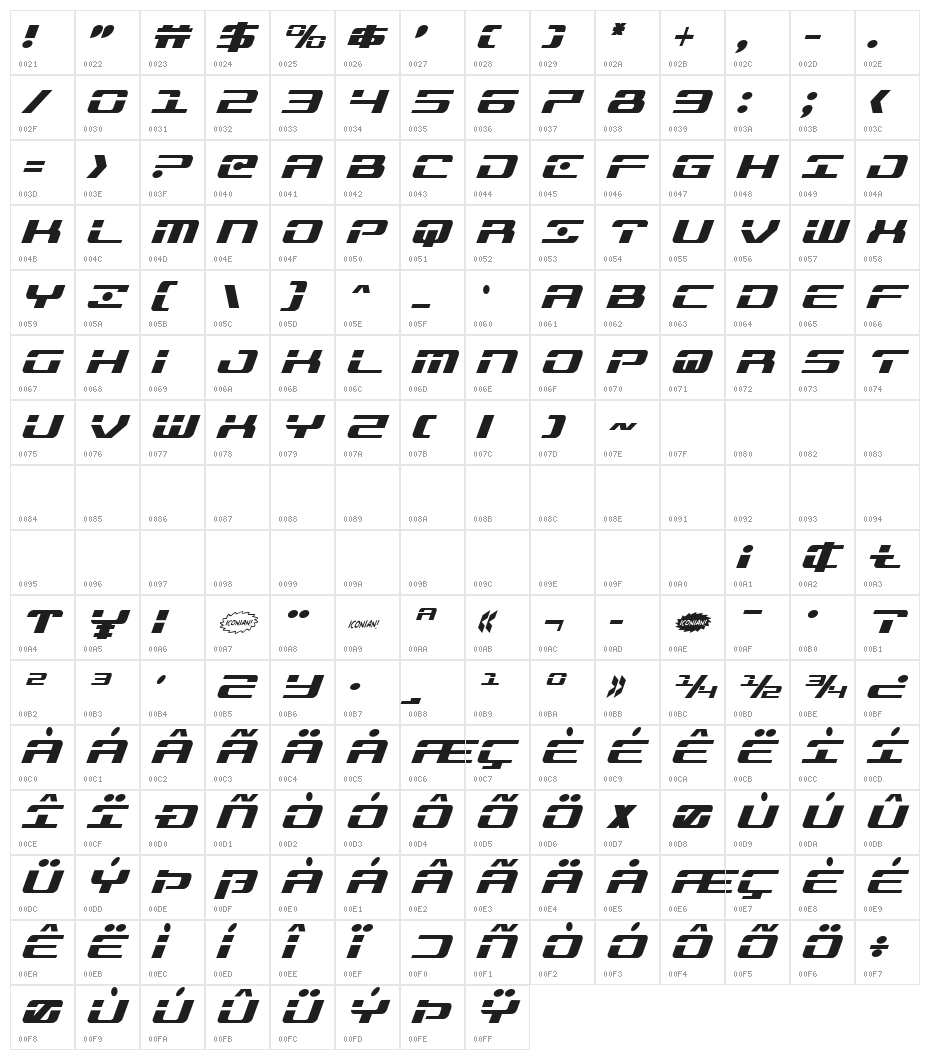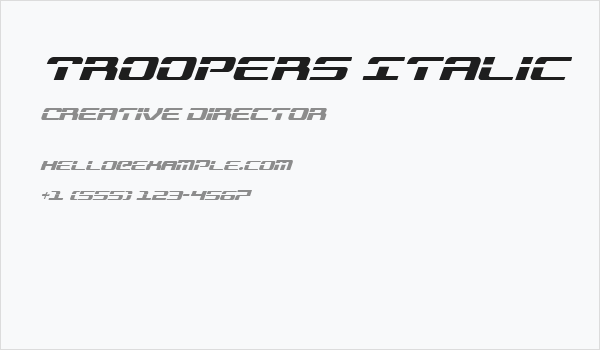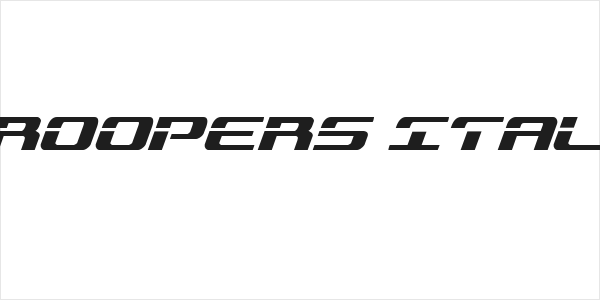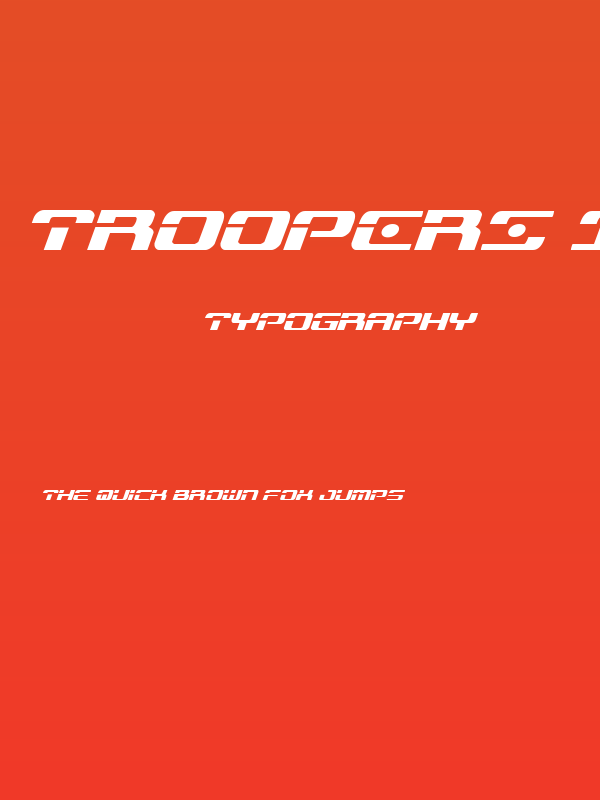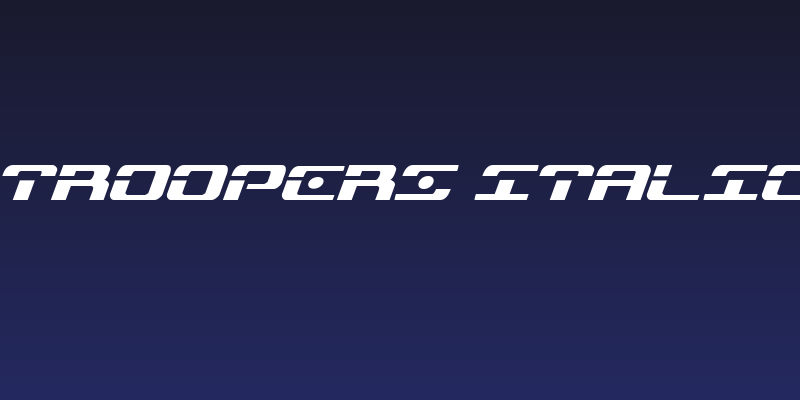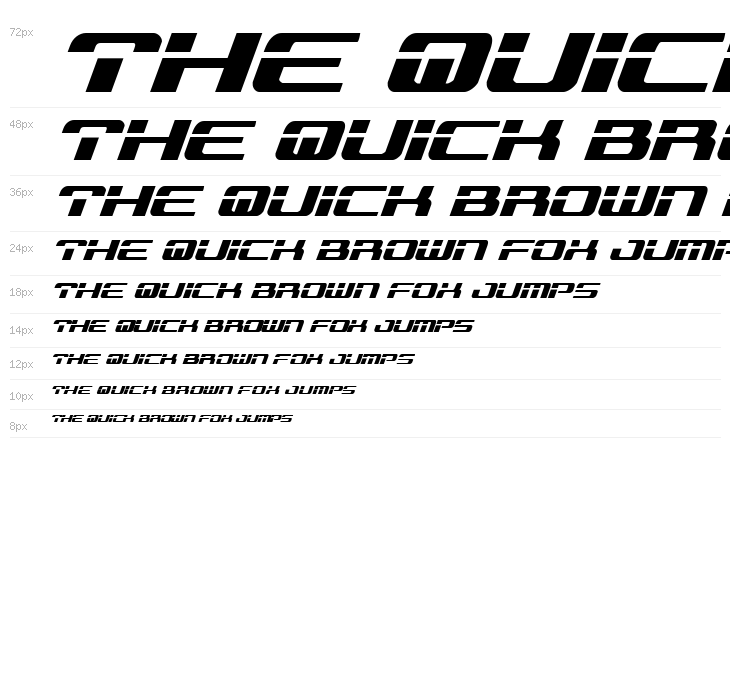
Troopers Italic Font
Troopers Italic Description
This font features a futuristic and angular design, characterized by its sharp edges and geometric shapes. The letters are slightly italicized, giving them a dynamic and forward-leaning appearance. The uppercase and lowercase characters maintain a consistent style, with the uppercase letters exhibiting a bold and commanding presence. The numerals and special characters are designed to match the overall aesthetic, ensuring uniformity across all glyphs. This font's unique style makes it suitable for projects that require a modern and edgy look.
| Proposed Projects | Ideal for sci-fi themed designs, video game titles, tech branding, and modern posters. |